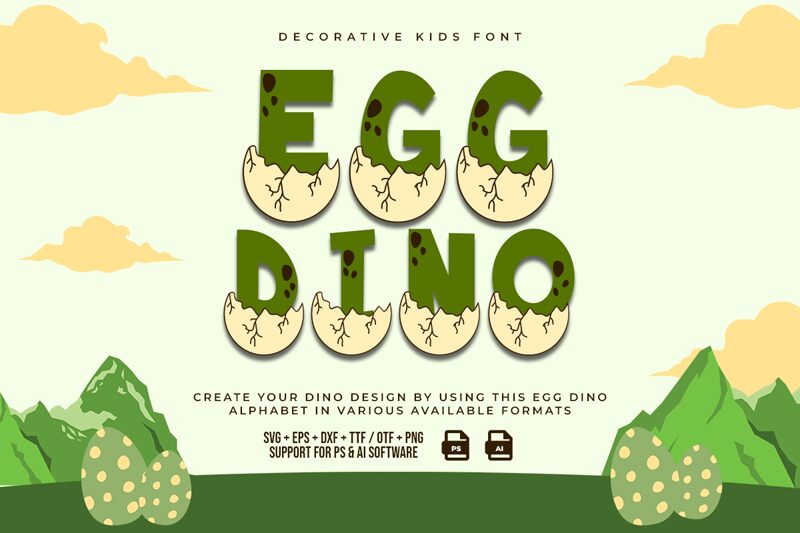
Egg Dino font by Kong Font is a bold and playful display font with a cartoon and decorative style. Introducing novelty design, this font uses cracked egg motifs to deliver very cute visuals suitable for children’s content. Logo design or packaging projects can use its whimsical feel to reach attraction immediately.
Create children’s book covers, catchy website banners, or food posters for minority-targeted products with the free Egg Dino font. Design reading apps targeted at beginners, game interfaces for kids’ games, social media posts, invitations of various kinds including birthday cards, advertising materials for schools and kindergartens, shop signage writing among others.